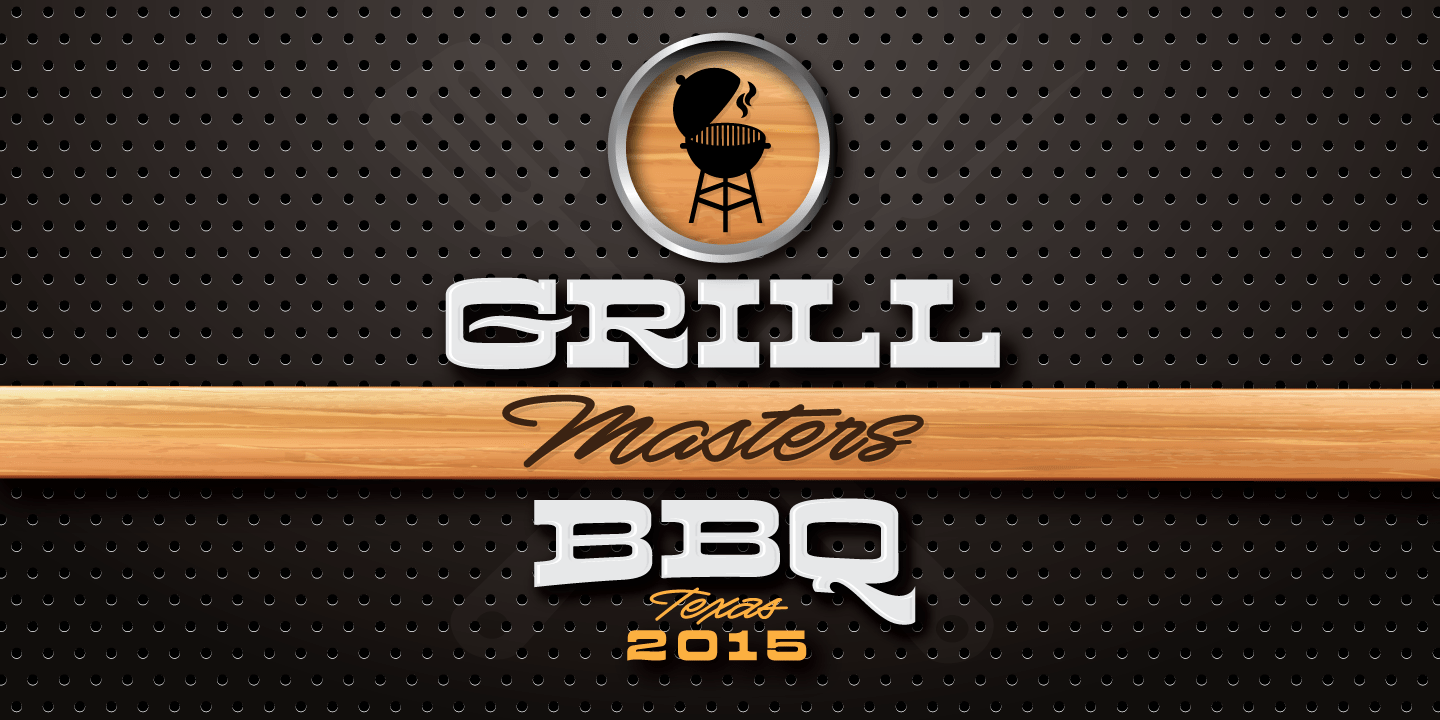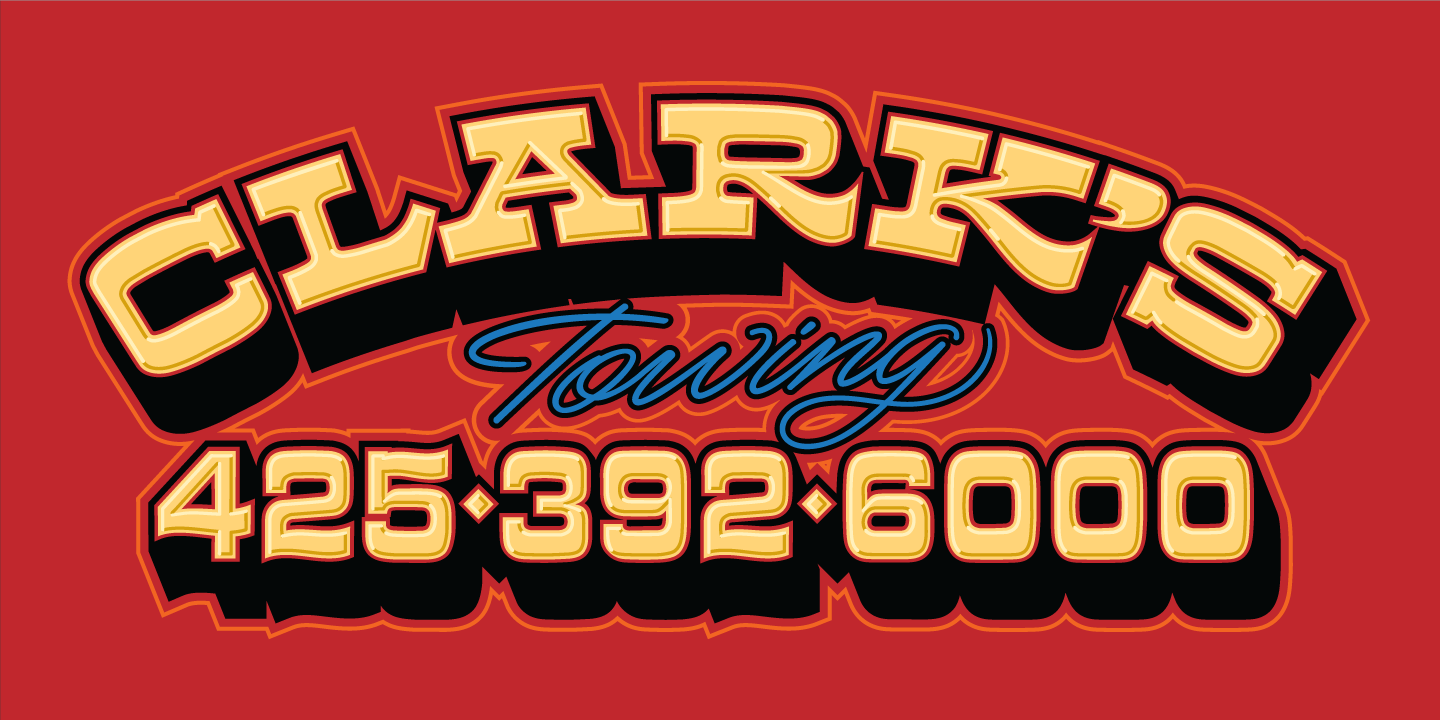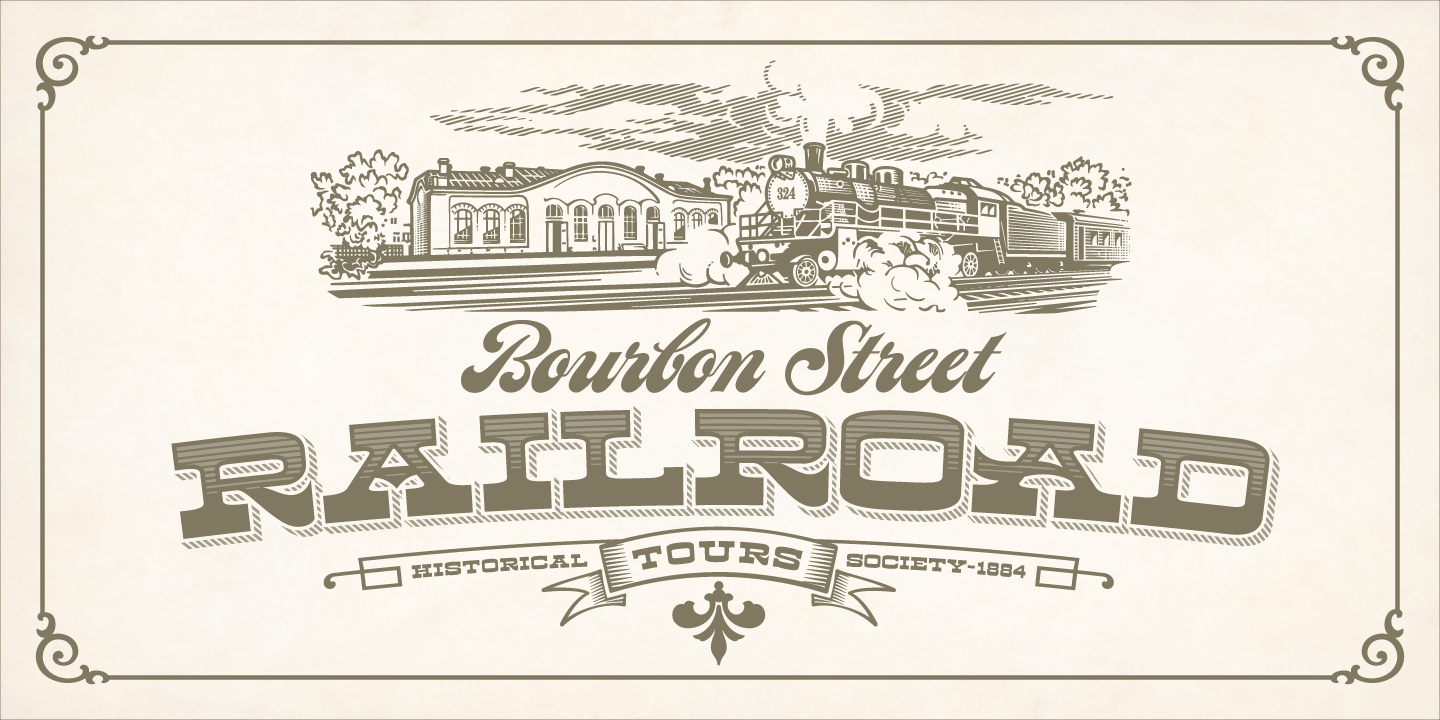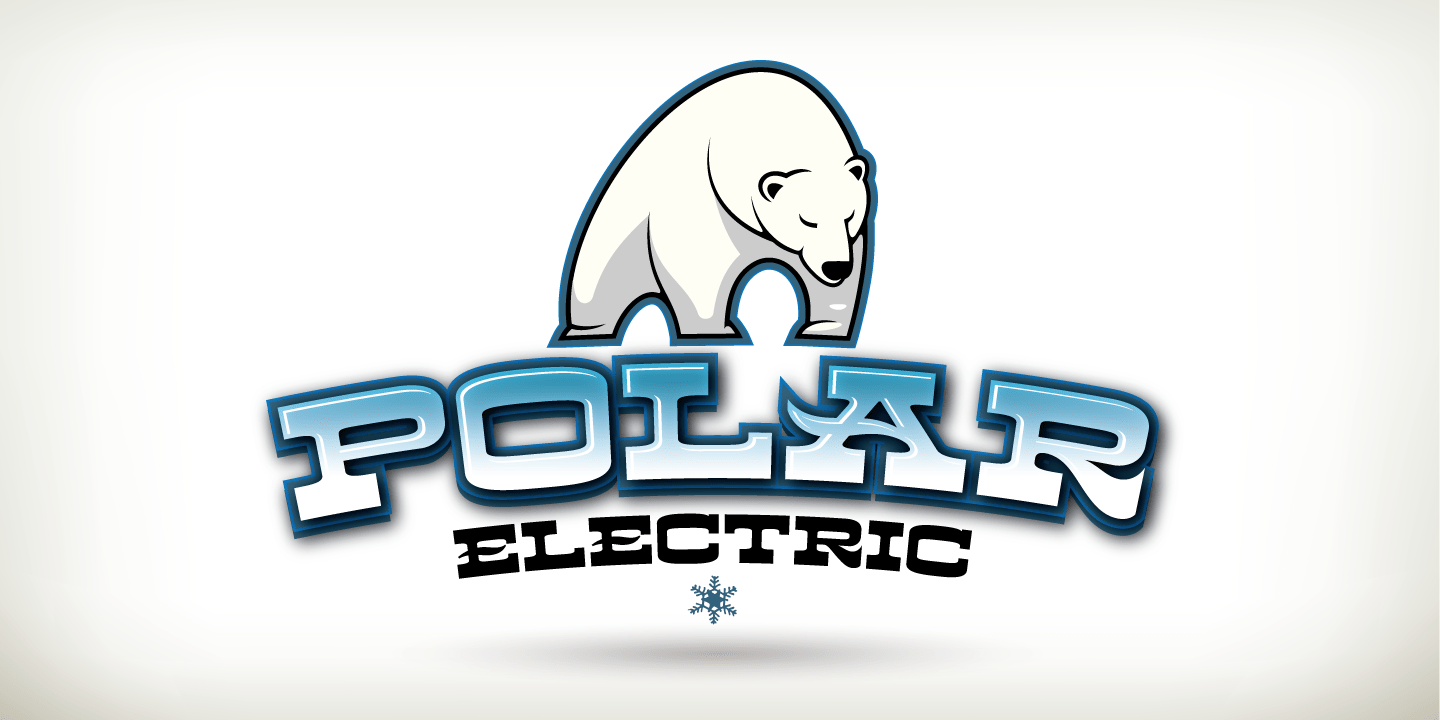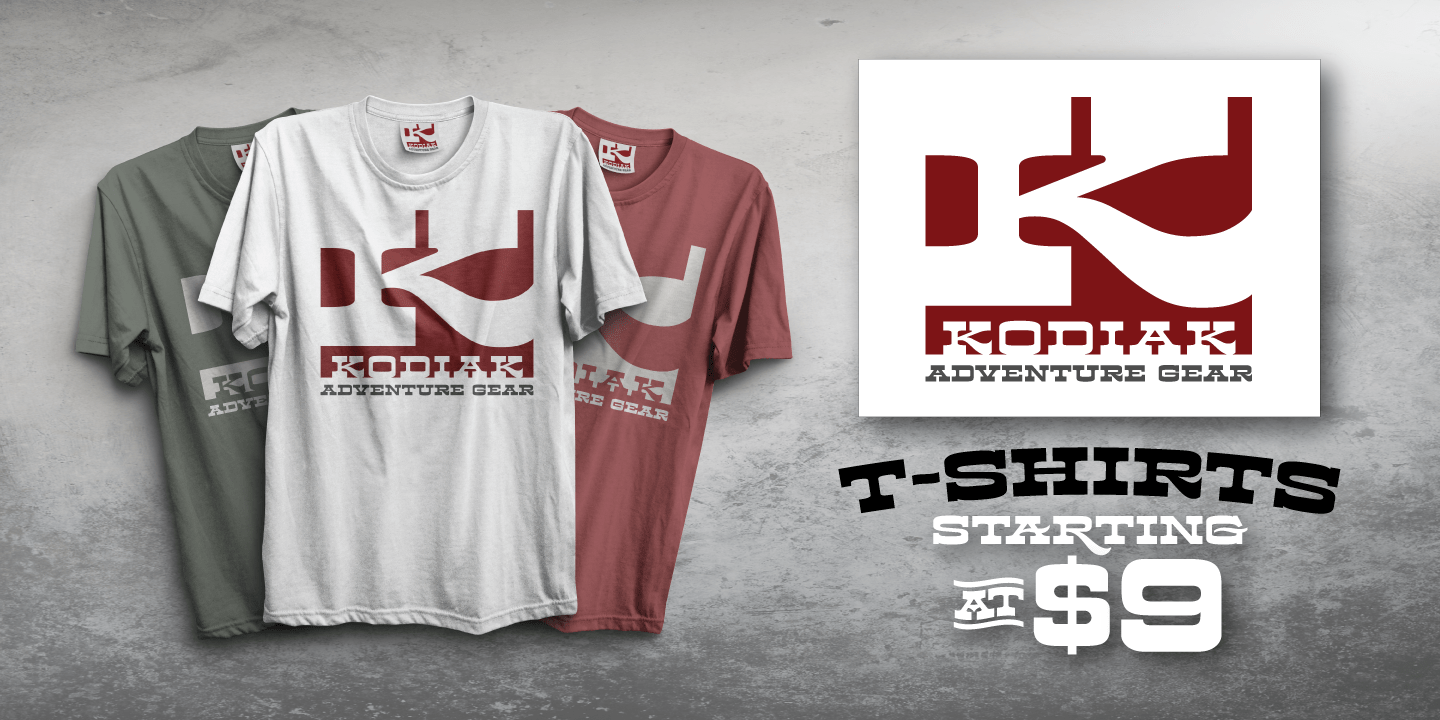
Kodiak
Font Family by CBdO Fonts
Kodiak was designed by 40+ year sign painting veteran, Brian Grant, and is loosely based on the works of many great sign painting masters. Brian and Charles Borges de Oliveira teamed up to bring this beautiful sign painters classic to the digital age. Kodiak retains the warmth of a hand lettered font without being stiff and mechanical. Great for period style lettering to modern day logos. With over 160 alternates and 10 ornaments you are bound to find the right look for your next design!